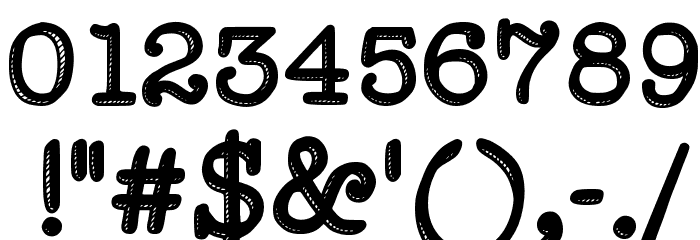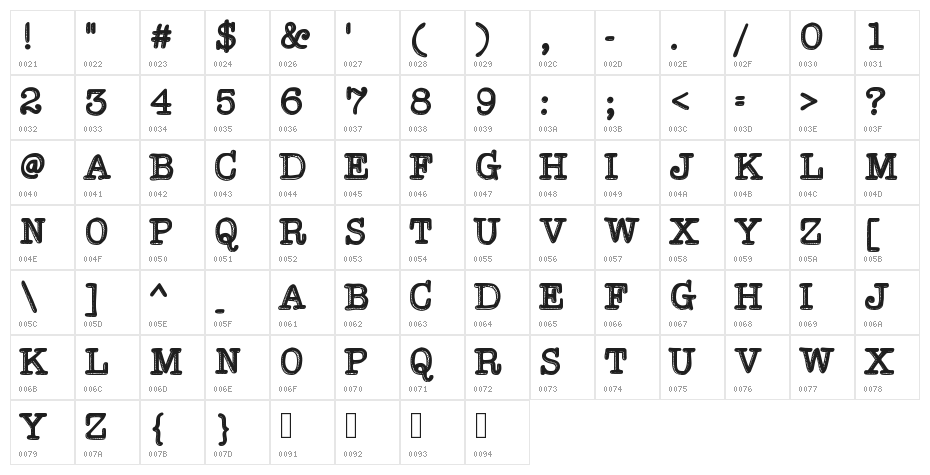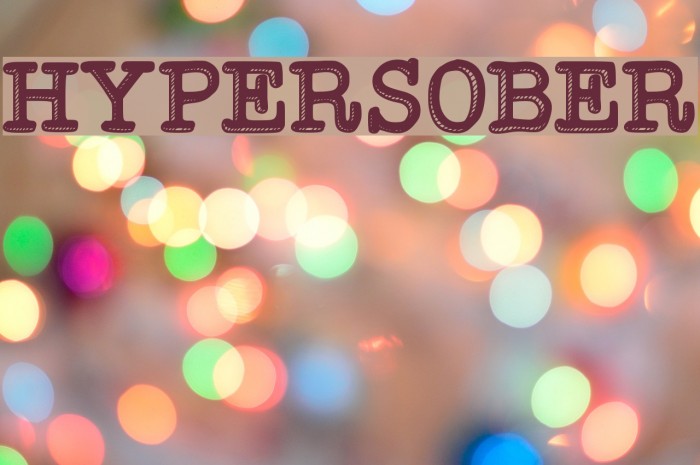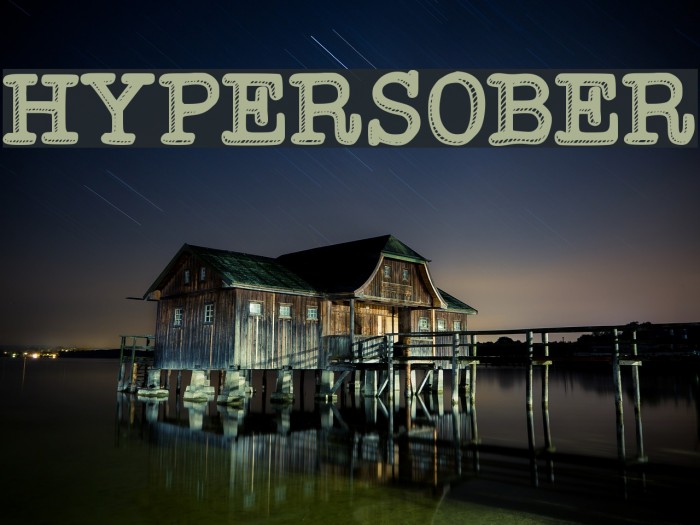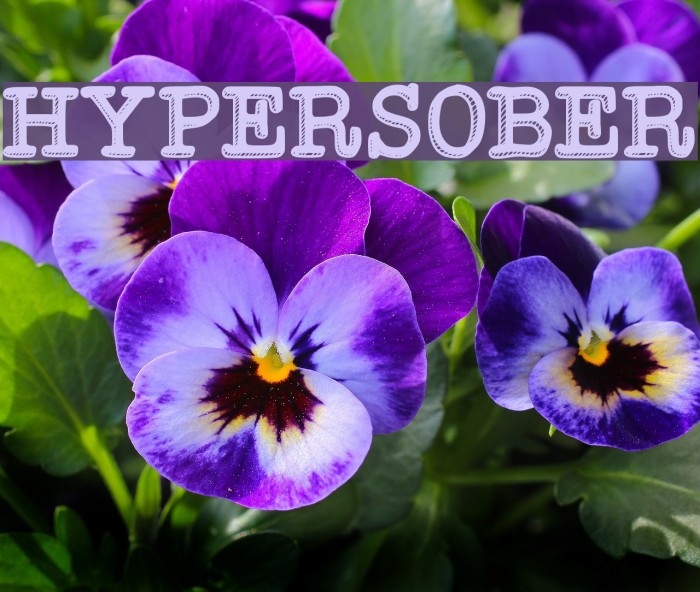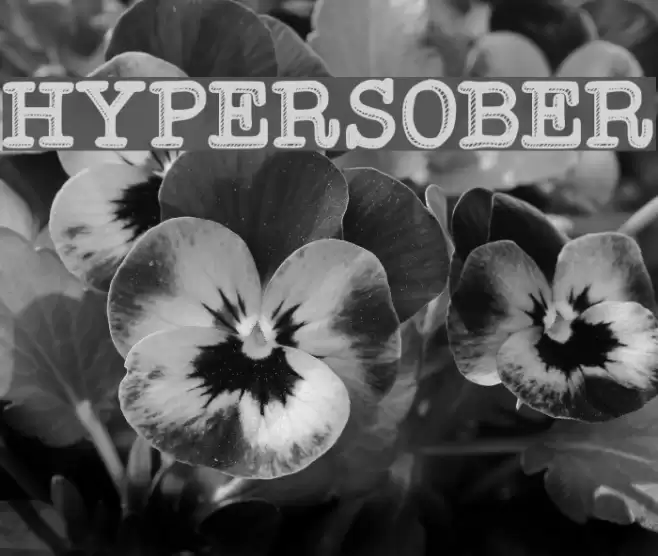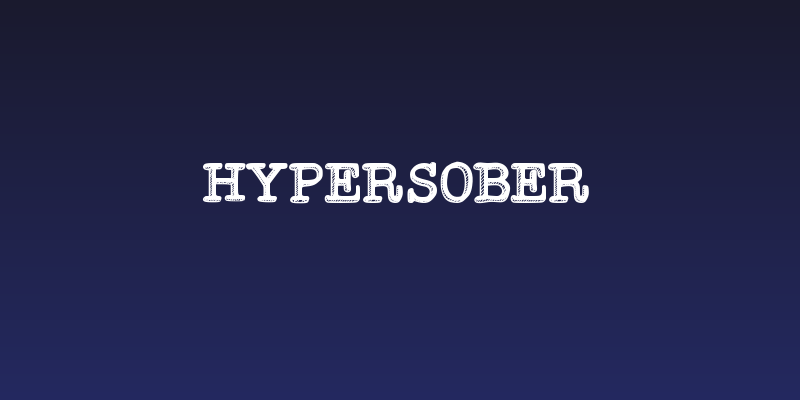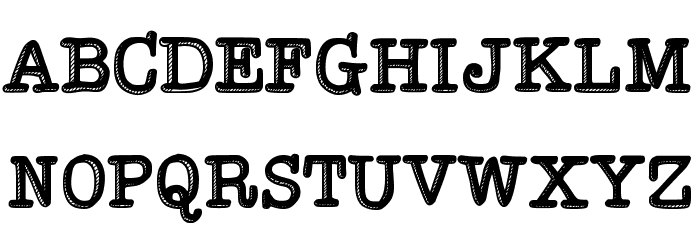
Hypersober Font
Hypersober Description
This font features a bold and playful design with a unique dotted texture inside each character, creating a sense of depth and dimension. The letters are well-defined with a consistent stroke width, giving them a sturdy and robust appearance. The uppercase and lowercase letters maintain a uniform style, while the numbers and special characters complement the overall aesthetic. The font's decorative nature makes it stand out, ideal for projects that require a touch of whimsy and creativity. Its distinct style is perfect for capturing attention and adding a fun element to any design.
| Proposed Projects | Perfect for children's books, playful branding, posters, and creative invitations. |